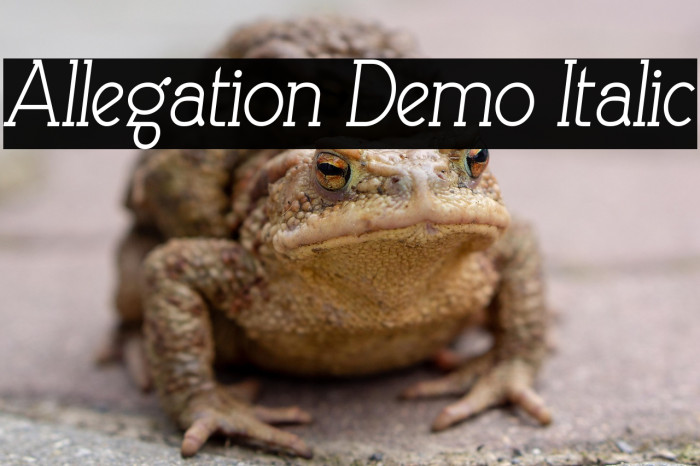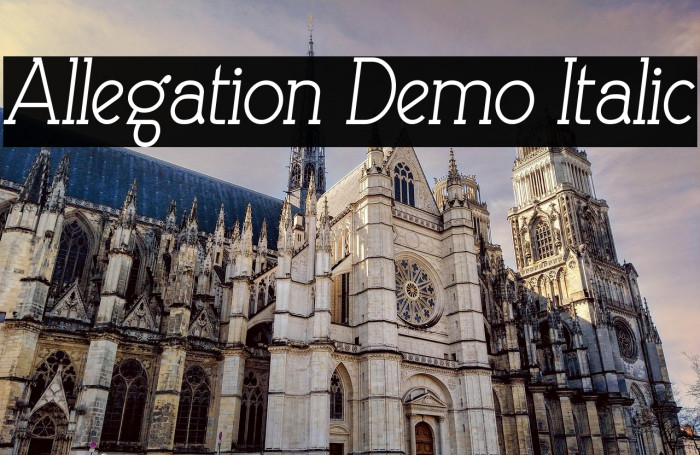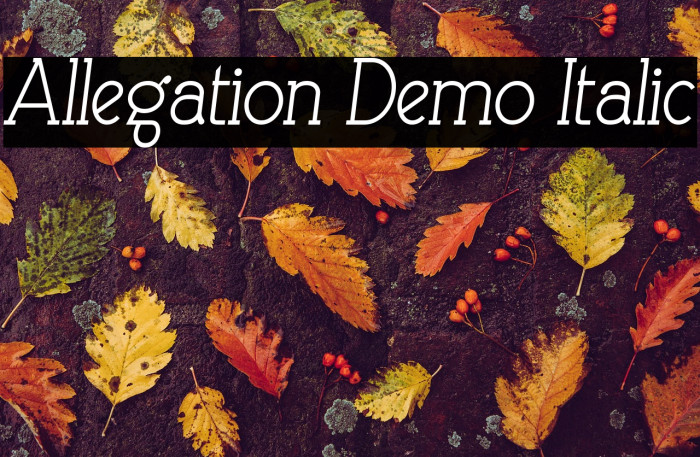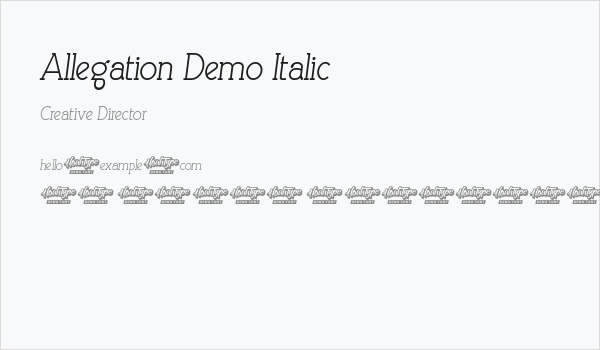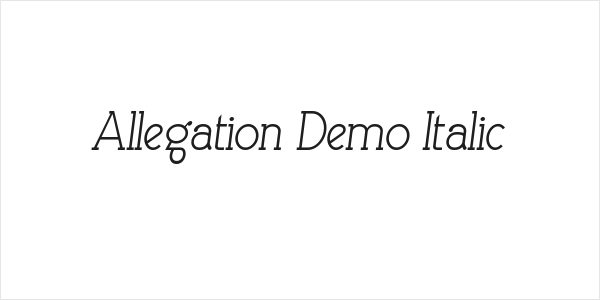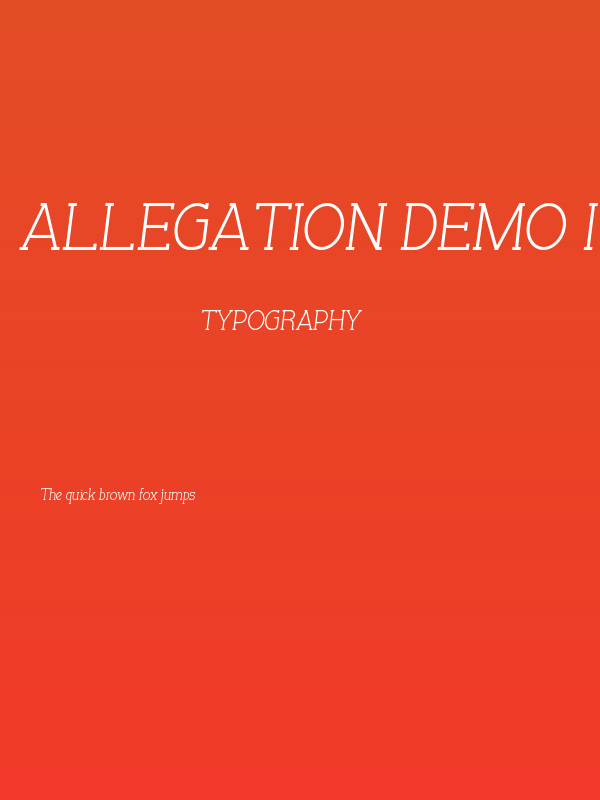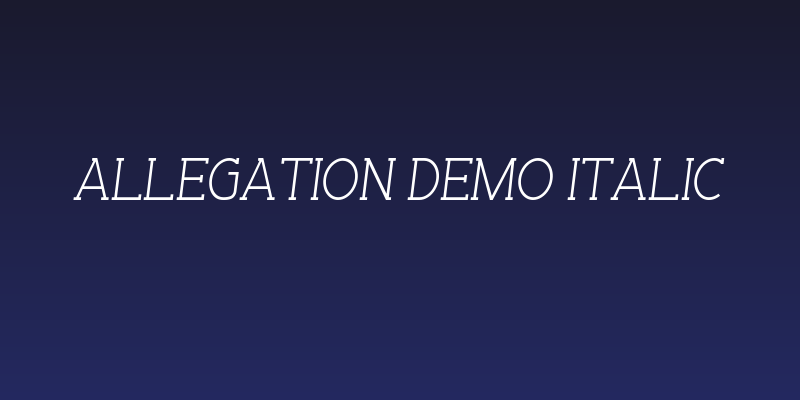
Allegation Demo Italic Font
Allegation Demo Italic Description
This font exhibits a refined and elegant style with a slight slant, characteristic of italic typefaces. The letters are well-proportioned with a moderate contrast between thick and thin strokes, giving it a sophisticated appearance. The serifs are subtle, adding a touch of classic elegance without overwhelming the overall design. The lowercase letters maintain a consistent flow, while the uppercase letters stand tall and assertive. This font is versatile, suitable for both formal and creative applications, providing a sense of movement and dynamism.
| Proposed Projects | Ideal for editorial design, book covers, elegant invitations, and branding projects that require a touch of sophistication. |